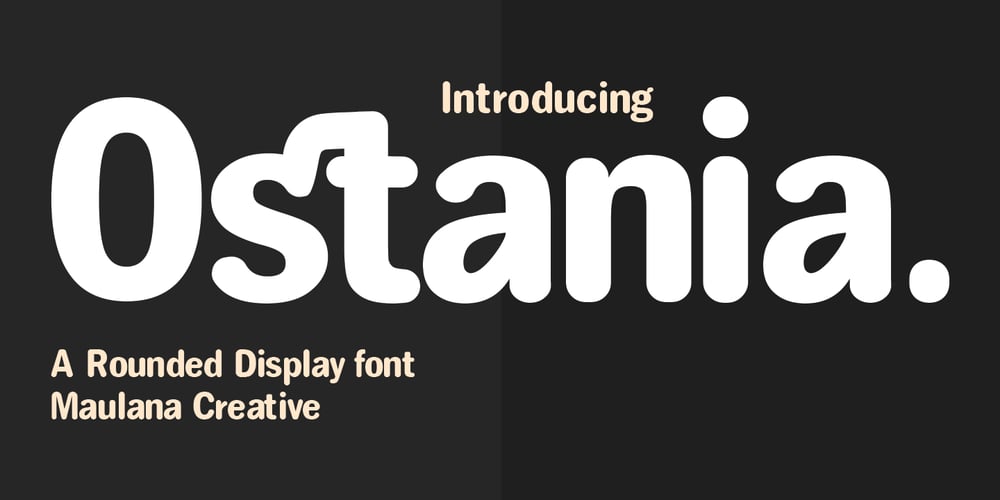
MC Ostania Font Family was designed by Gilang Maulana and published by Maulana Creative. MC Ostania contains 1 styles and family package options. Ostania rounded sans serif font. Heavy stroke, fun character with a bit of ligatures. To give you an extra creative work. Ostania sans serif font support multilingual more than 100+ language. This font is good for logo design, Social media, Movie Titles, Books Titles, a short text even a long text letter and good for your secondary text font with script or serif. Make a stunning work with Ostania sans serif font.